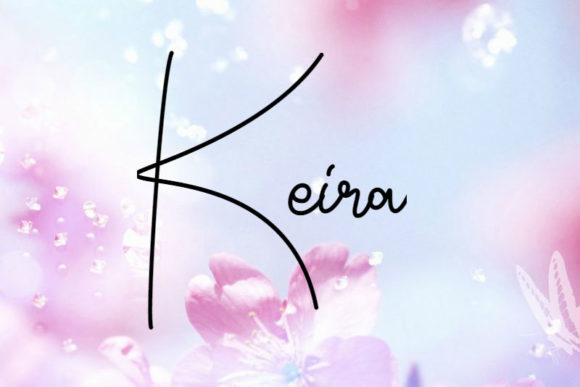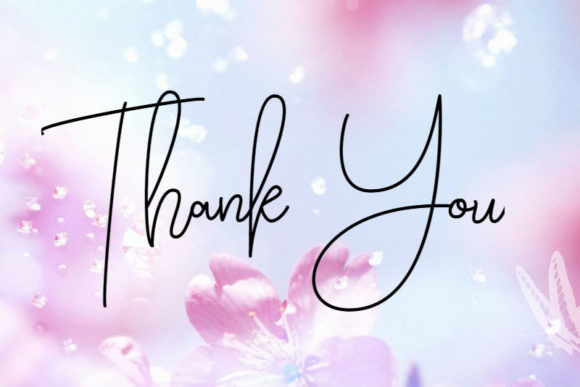
Keira Font
About Keira Font
Keira is a bold and cool handwritten font with a curved baseline and bold capital letters. It will easily turn any word into a standout!